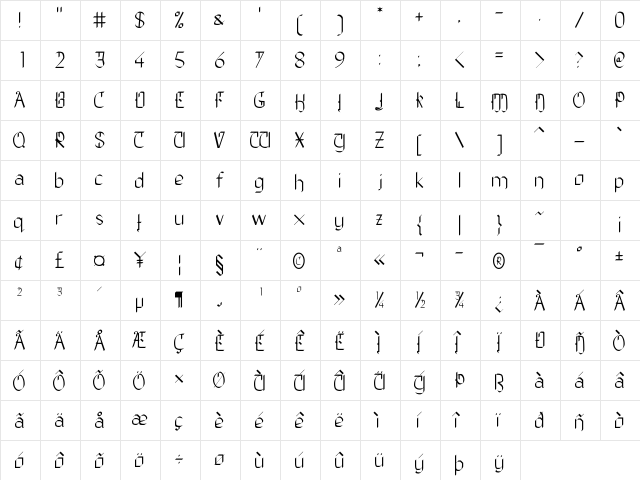
The Daily Blah Regular
Design Context for The Daily Blah Typeface
The Daily Blah is a composed and adaptable typeface that performs quietly and consistently across a wide range of design contexts.